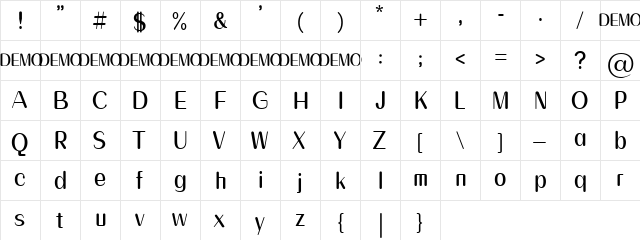
Cats And The City Demo Regular
| Foundry | Epiclinez |
| Designer | Aldy F S |
Design Context for Cats And The City Demo Typeface
Cats And The City Demo takes a measured approach to typography — its balanced proportions and neutral character make it a reliable workhorse for both digital and print work.